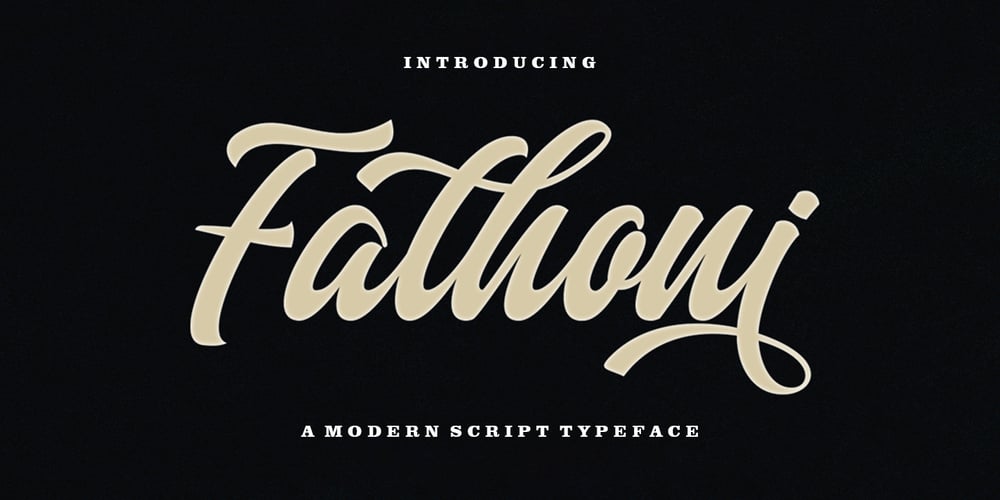
Fathoni Font Family was designed by Rizki Andika and published by Letterfreshstudio. Fathoni contains 1 styles and family package options. Fathoni is a modern handwritten calligraphy script. It contains the complete set of lowercase, uppercase, alternative, ligature, punctuation, numbers, and multilingual support. Work in harmony with Fathoni to create extraordinary calligraphy creations. You are welcome to use it for various purposes: logos, wedding invitations, titles, signatures, t-shirts, letterheads, nameplates, labels, posters, and more. How to access all alternative characters, using Windows Character Map with Photoshop https://www.youtube.com/watch?v=Go9vacoYmBw How to access all alternative characters using Adobe Illustrator: https://www.youtube.com/watch?v=XzwjMkbB-wQ